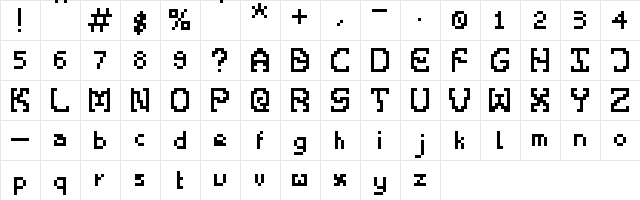
Big Monster Regular
Design Context for Big Monster Typeface
Big Monster is a composed and adaptable typeface that performs quietly and consistently across a wide range of design contexts.
Pro Tip: Pair Big Monster with a font of contrasting weight or personality to build a more expressive typographic hierarchy.